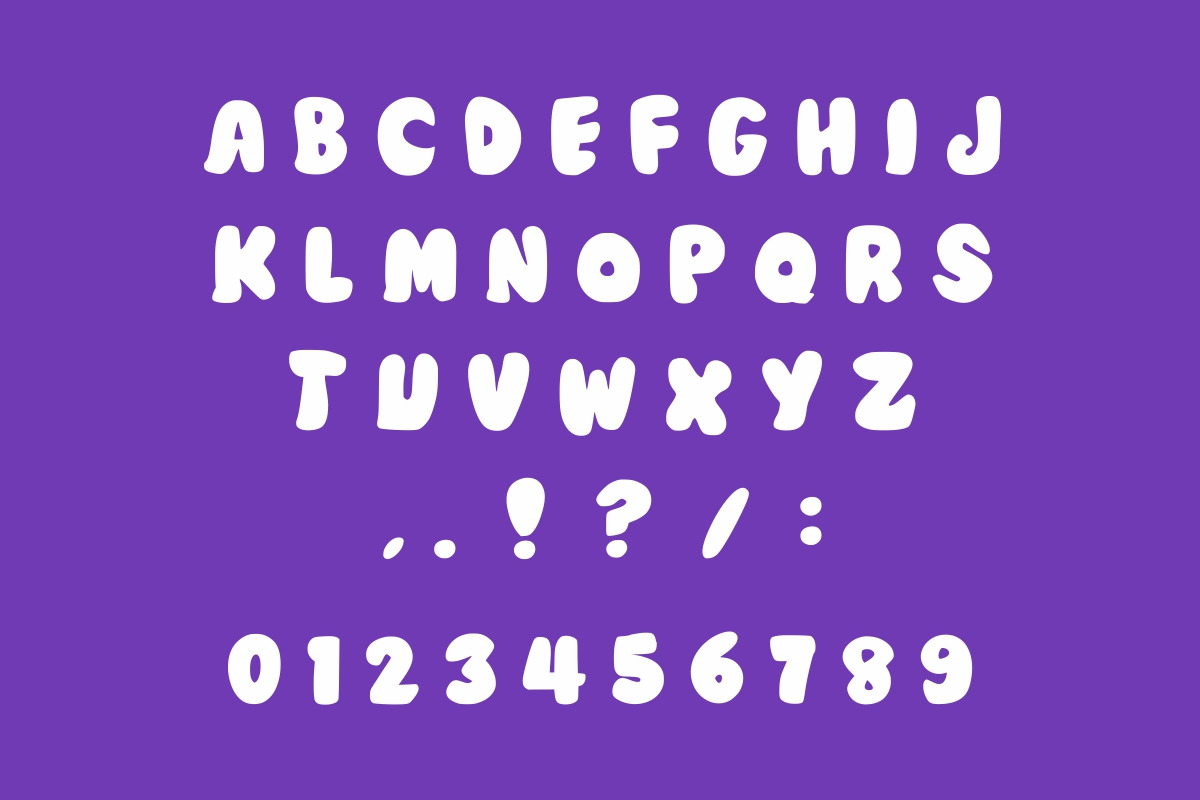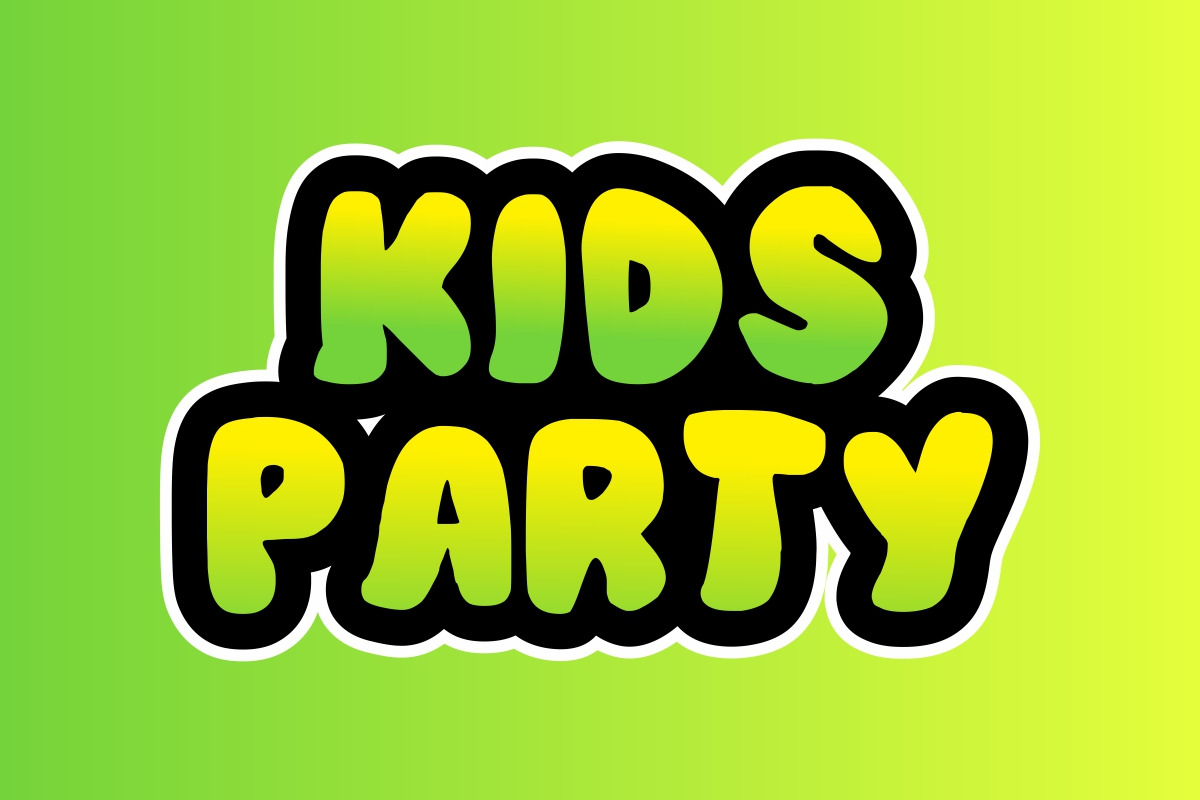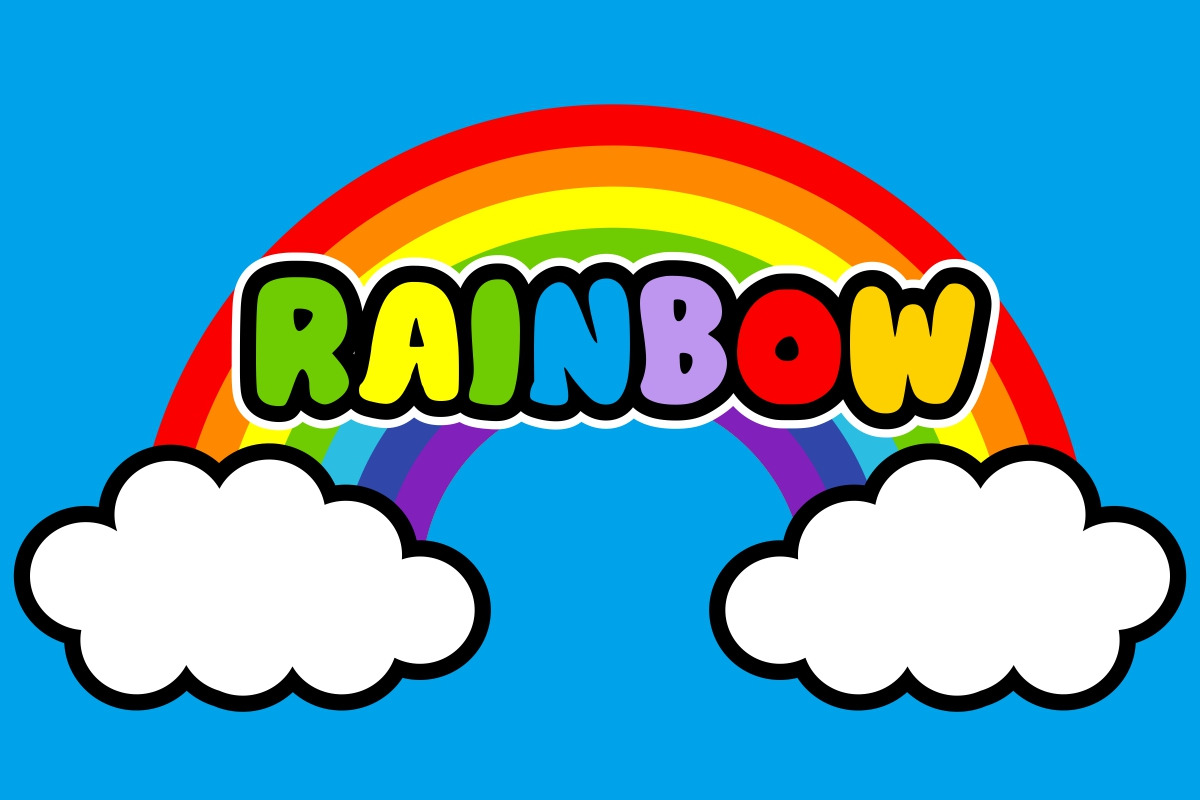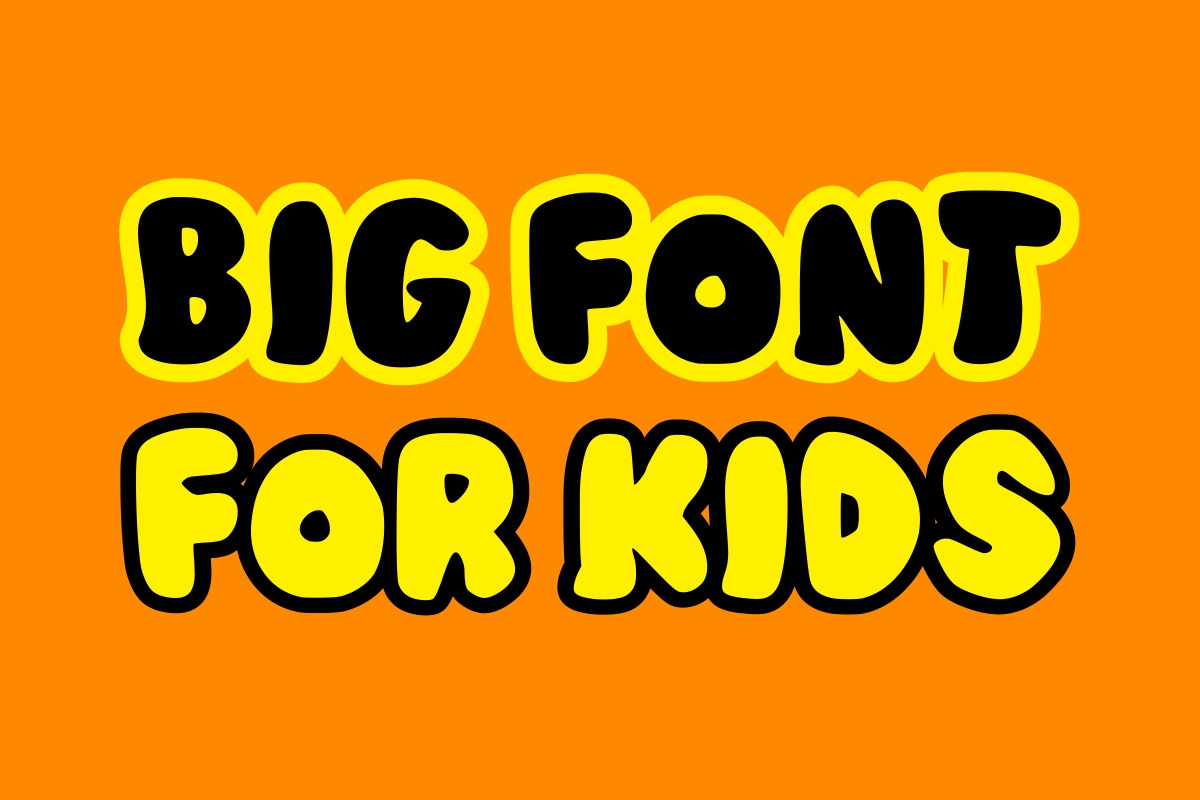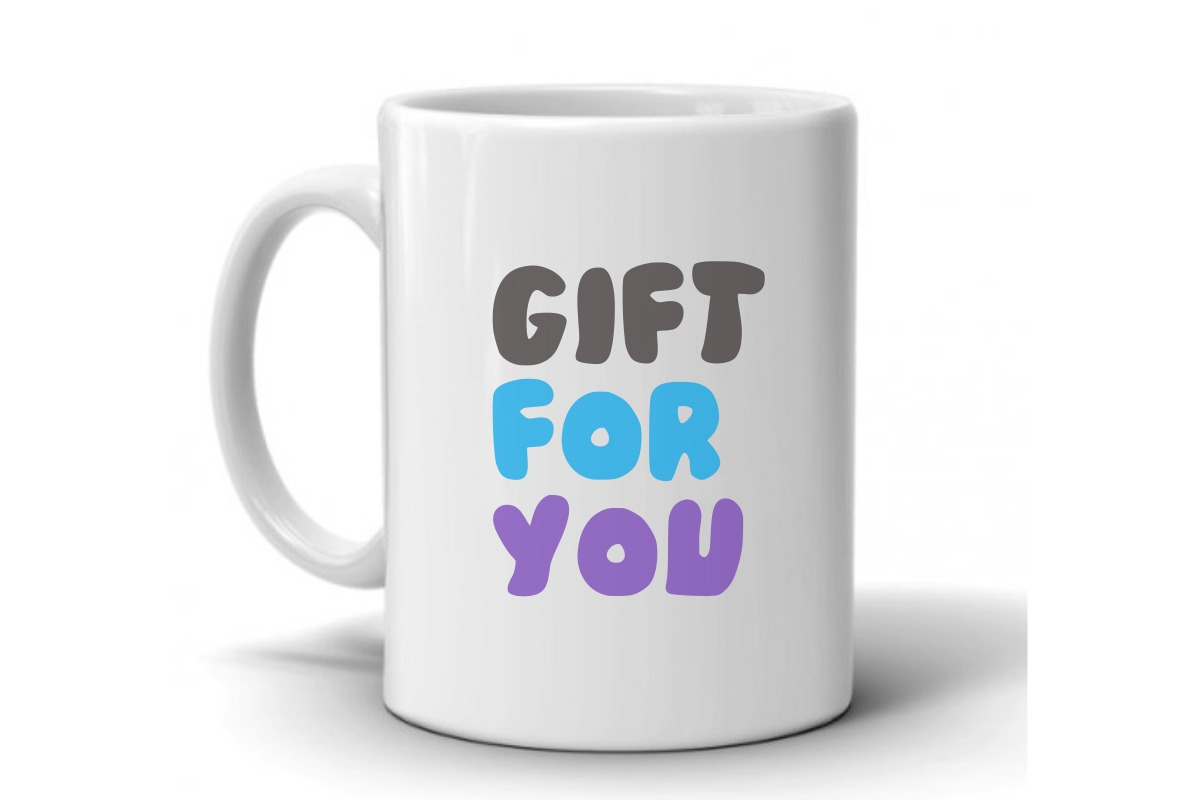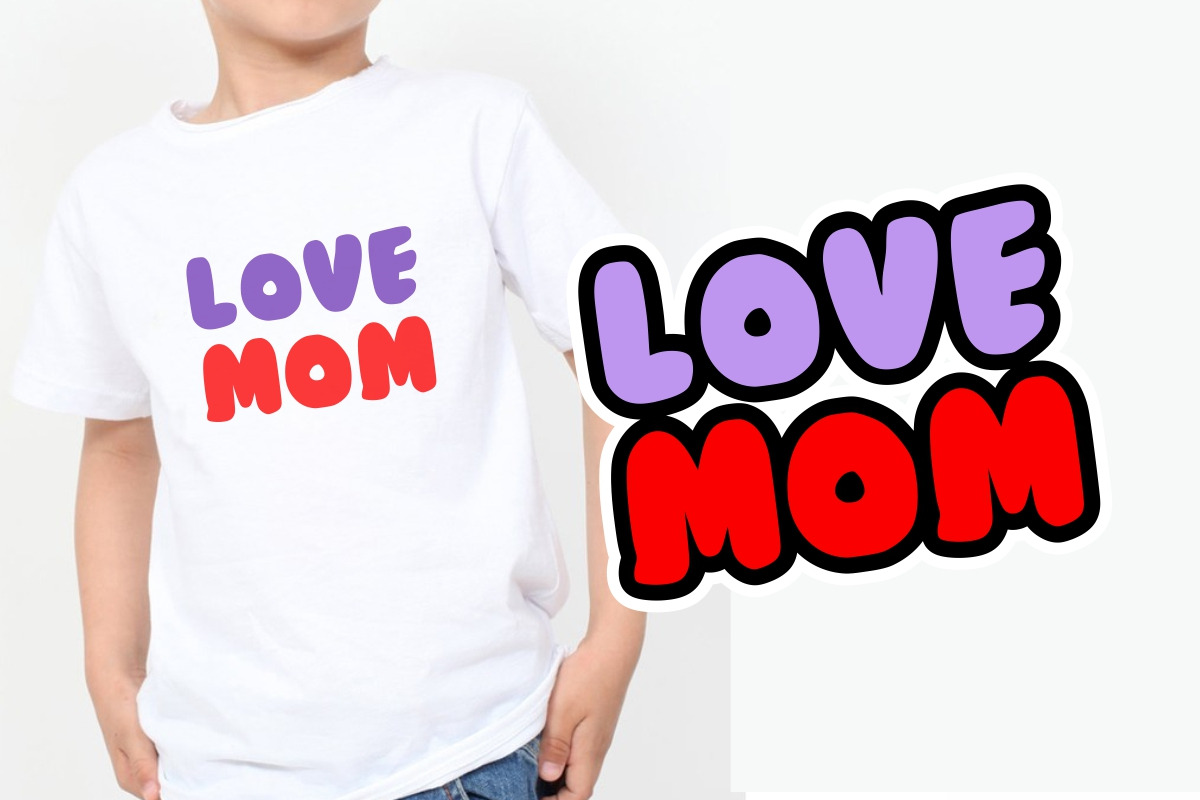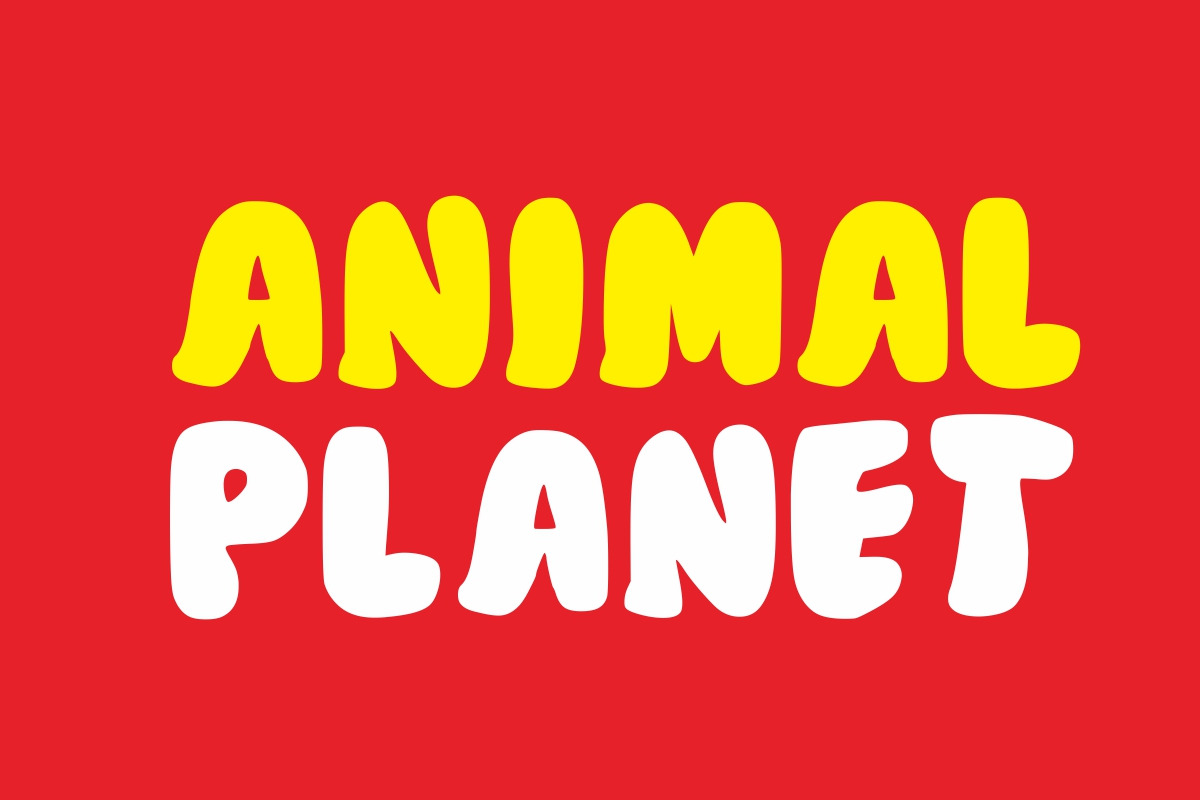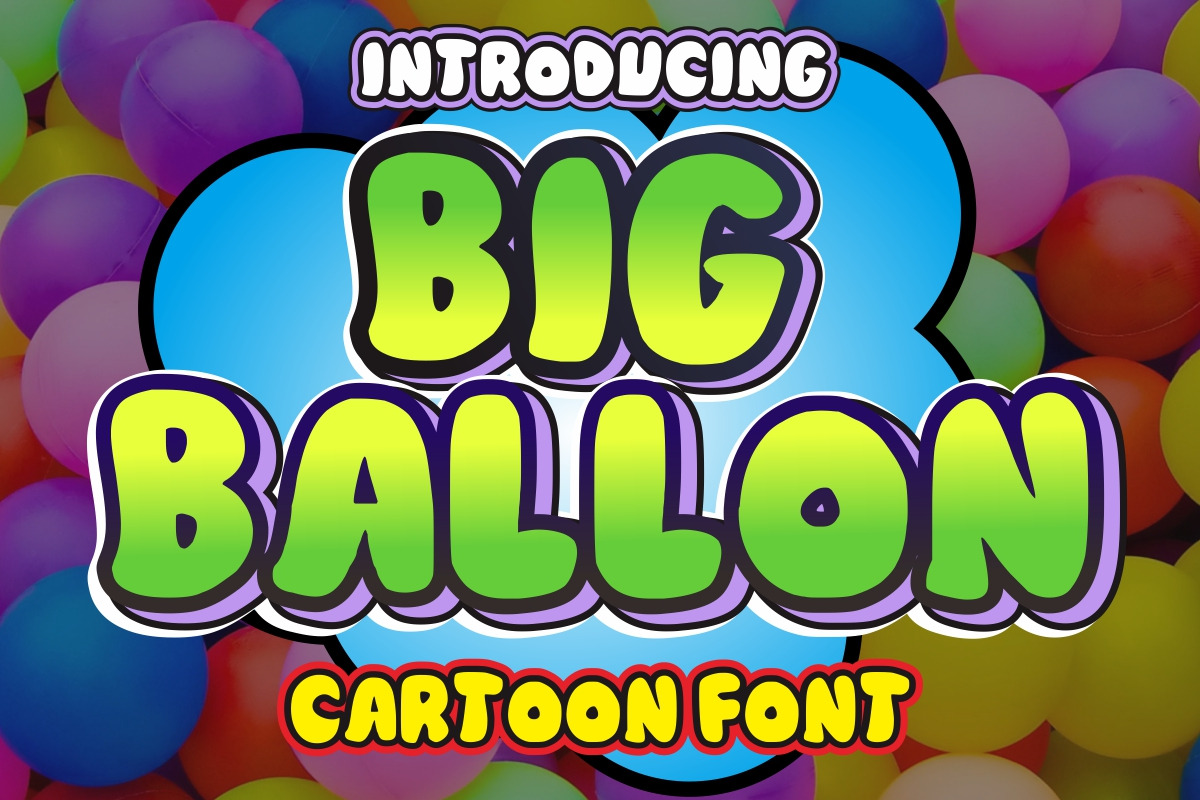
Big Ballon - Cartoon Font
Big Ballon is a childish, easy-to-read display font that conveys impeccable friendliness. Whether you’re using it for crafts, digital design, presentations, or making greeting cards, this font has the potential to become your favorite go-to font, no matter the occasion!